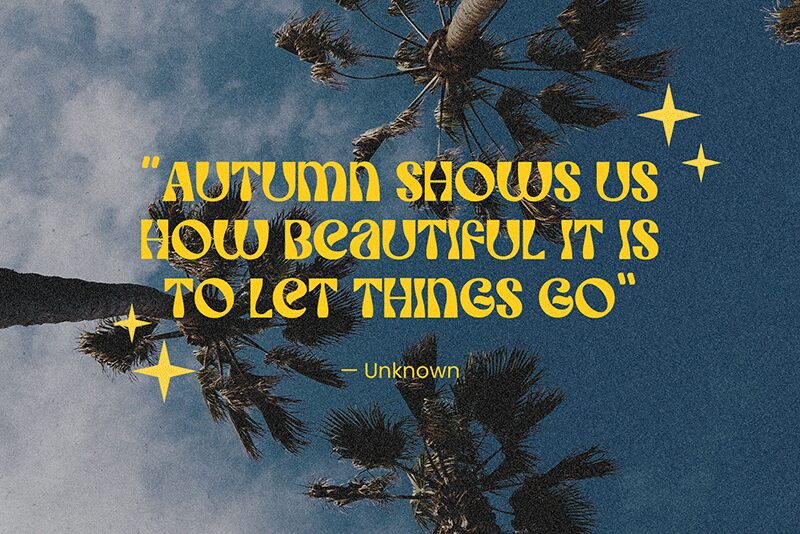
Sunwish Maverick Regular
Sunwish Maverick font by Arterfak Project is a display typeface characterized by its bold weight and groovy style. Embracing flamboyant and retro-inspired aesthetics, it showcases unique artistic flair with unconventional shapes that lend a dramatic visual impact to any design.